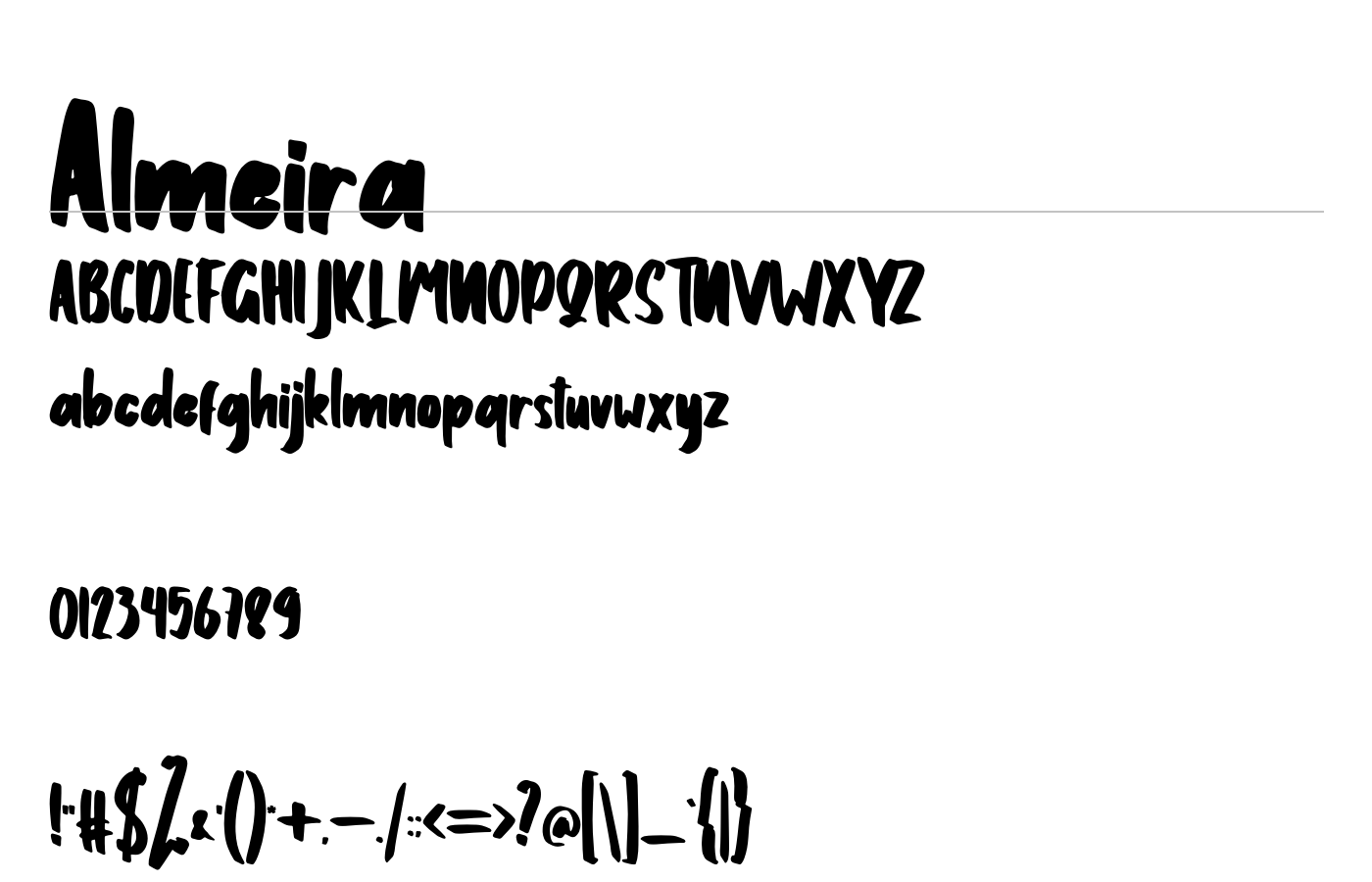
Almeira is a bold, playful handwritten font with a strong, casual presence. Its uneven strokes and quirky letter shapes create a friendly, informal vibe perfect for fun and creative projects like posters, branding, and social media. This font works well where a lively and approachable look is desired, adding personality without sacrificing readability.
Almeira Font
About Almeira Font